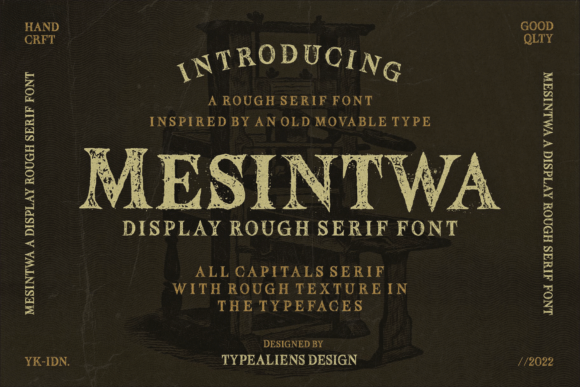
Welcome to the world of Mesintwa Font, a captivating display font that will take your designs to new heights. Allow Mesintwa to adorn your creations with its timeless elegance, leaving an indelible mark of sophistication and charm.
With Mesintwa Font, you'll embark on a journey through the annals of typography, where classic serif aesthetics intertwine with a touch of modernity. Its letterpress effect, reminiscent of a bygone era, adds a layer of depth and texture that will transport your designs to a realm of vintage allure.
Whether you're crafting eye-catching posters, captivating social media graphics, or elegant invitations, Mesintwa Font is your perfect companion. Its versatility knows no bounds, effortlessly adapting to a myriad of design projects. Unleash your creativity and watch as your words dance across the page, imbued with an air of timeless grace.